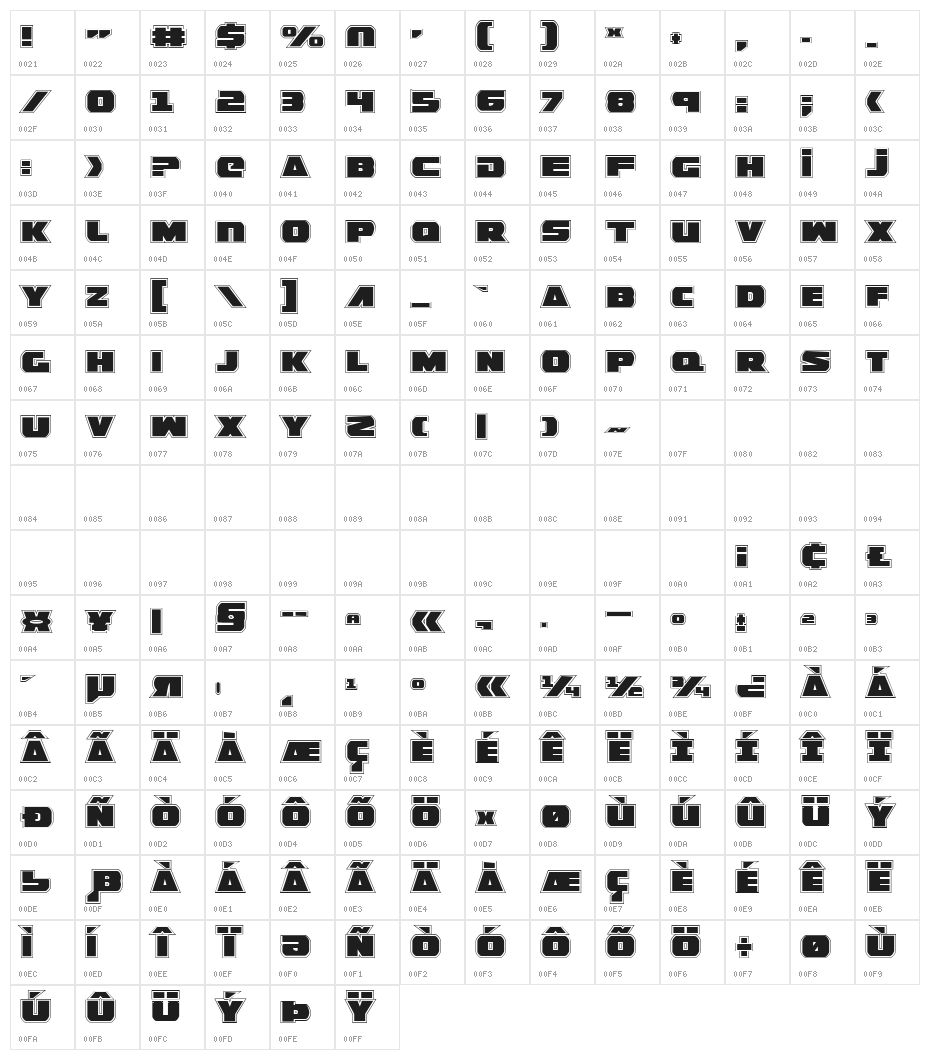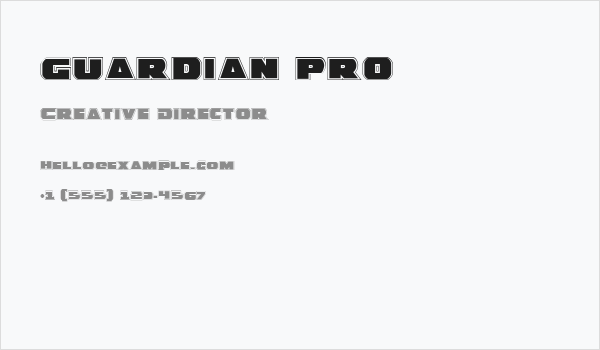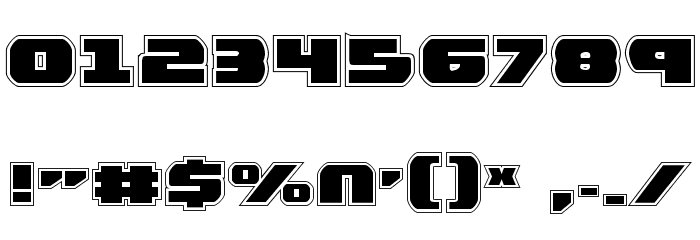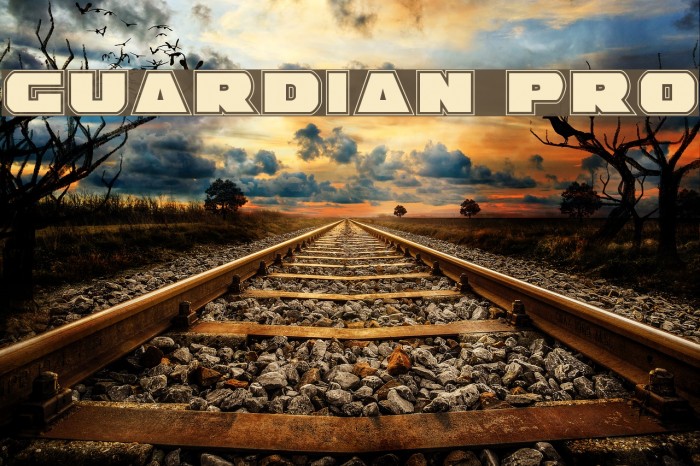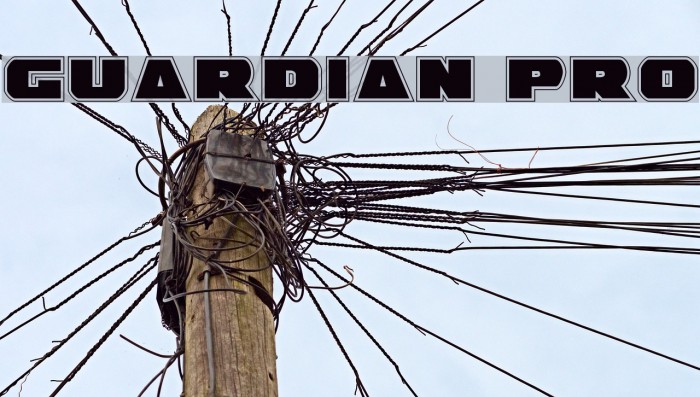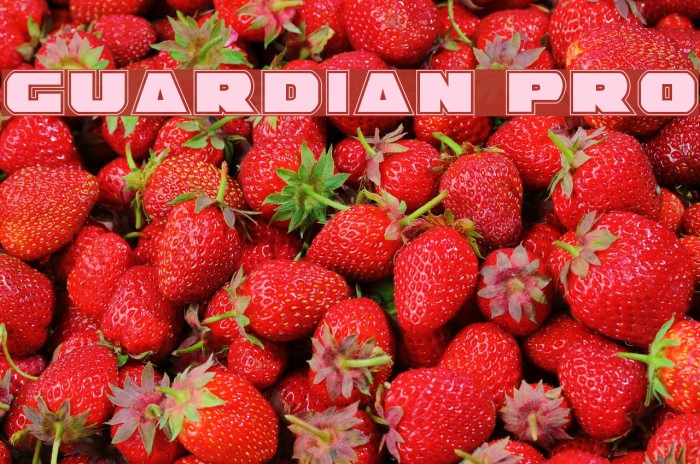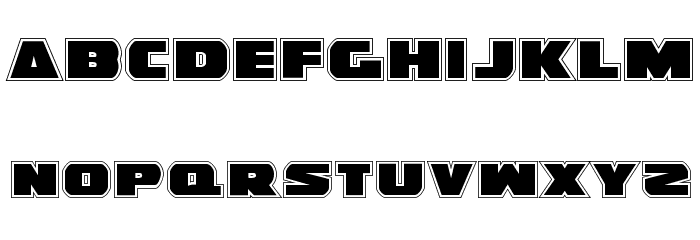
Guardian Pro Font
Guardian Pro Description
This font features a bold, geometric design with a strong, impactful presence. Each character is crafted with a thick outline and solid fill, creating a striking contrast that enhances readability. The angular shapes and sharp edges give it a futuristic and modern appeal, making it ideal for attention-grabbing headlines and logos. The uniformity in character height and width ensures a cohesive look across all text, while the consistent spacing maintains clarity. Its unique style is both eye-catching and versatile, suitable for various creative projects.
| Proposed Projects | Ideal for branding, posters, video game graphics, and sci-fi themed designs. |